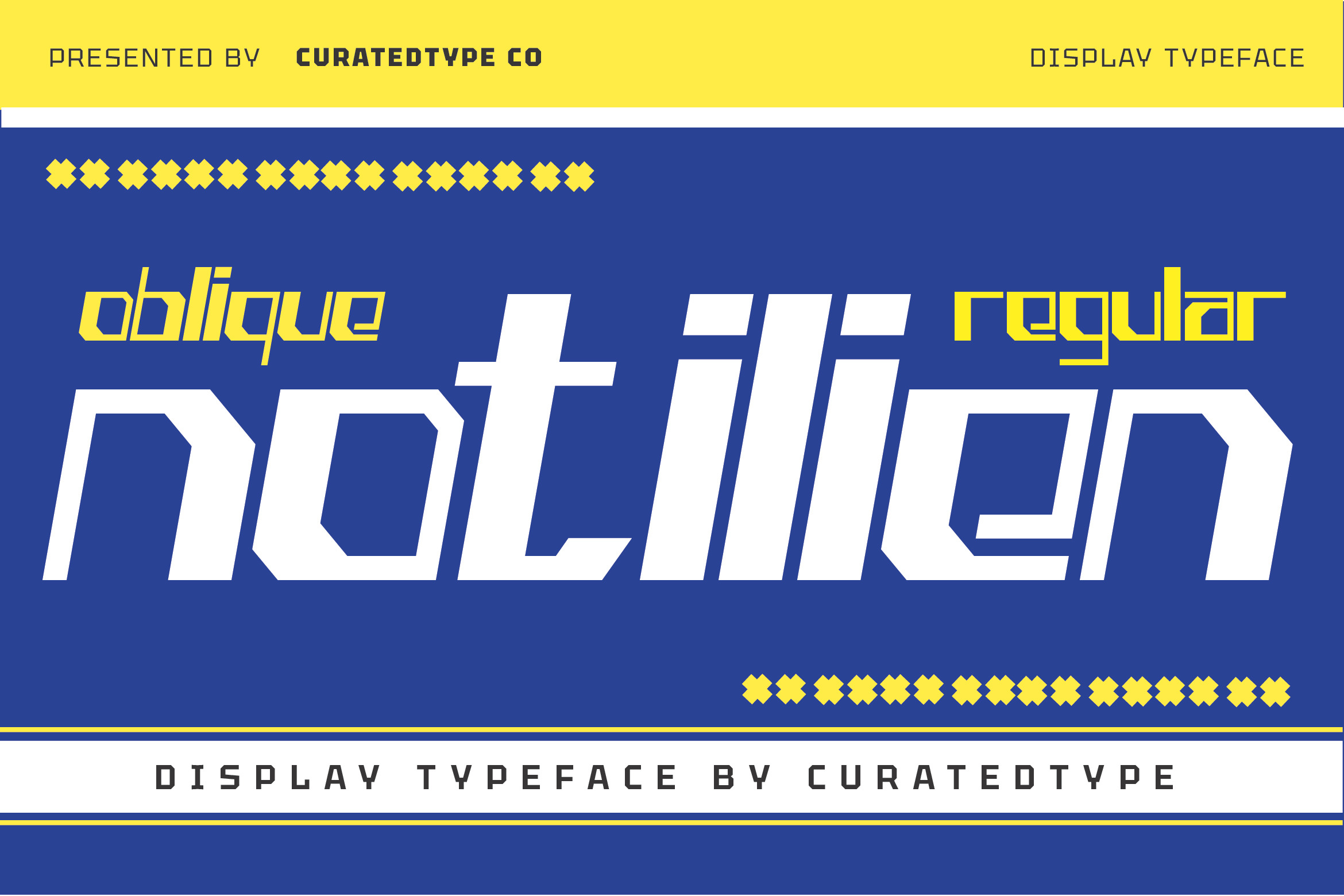
Notilien - Display Font
Notilien is a futuristic display font with a bold, geometric structure and sharp angles. Its tall, narrow form enhances readability while maintaining a sleek, high-tech aesthetic, making it ideal for modern branding and digital interfaces.
Designed for versatility, Notilien blends retro and futuristic elements, creating a dynamic presence in posters, logos, and tech-inspired visuals. Its structured precision and striking contrast ensure a strong, impactful design.
- 2 Font Styles: Heavy & Oblique